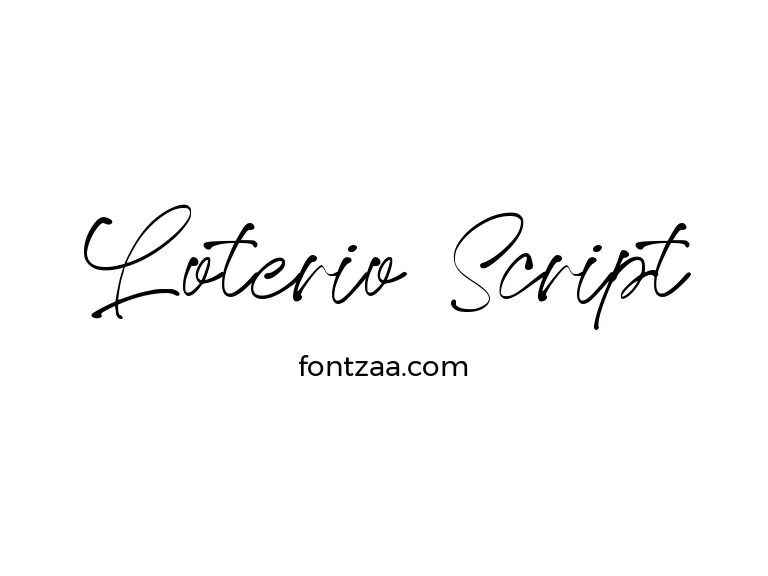
Loterio Script Font
Loterio Script Font is an elegant typeface published by Amin Mario. The download includes 1 font file (TTF) with 241 glyphs, covering uppercase and lowercase letters, numerals, common punctuation, accented Latin characters and currency symbols. It suits invitations, wedding stationery, signatures, quotes and elegant branding, particularly at larger sizes where the letter shapes are easier to see.
Loterio Script Font Alphabet Preview
Pairing and Use
For body text, pair Loterio Script Font with a clean sans serif such as Montserrat or Lato and keep the font itself for headlines and key words.